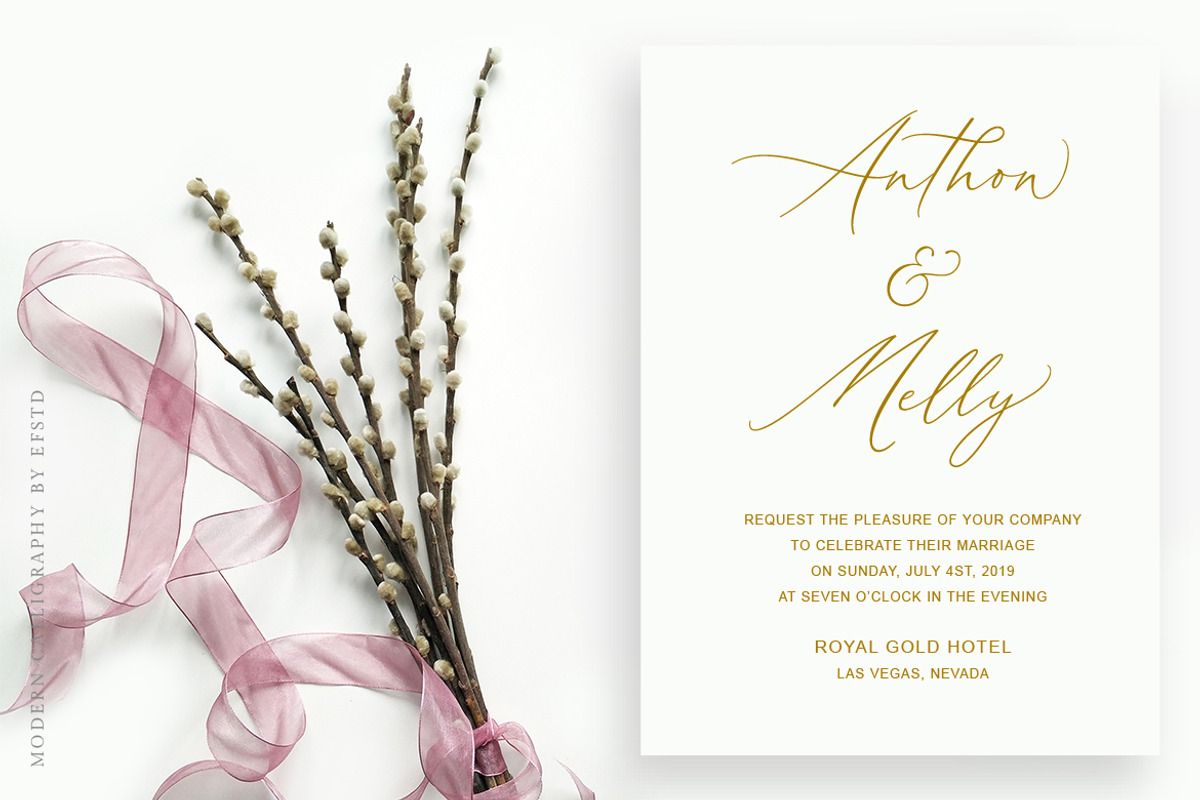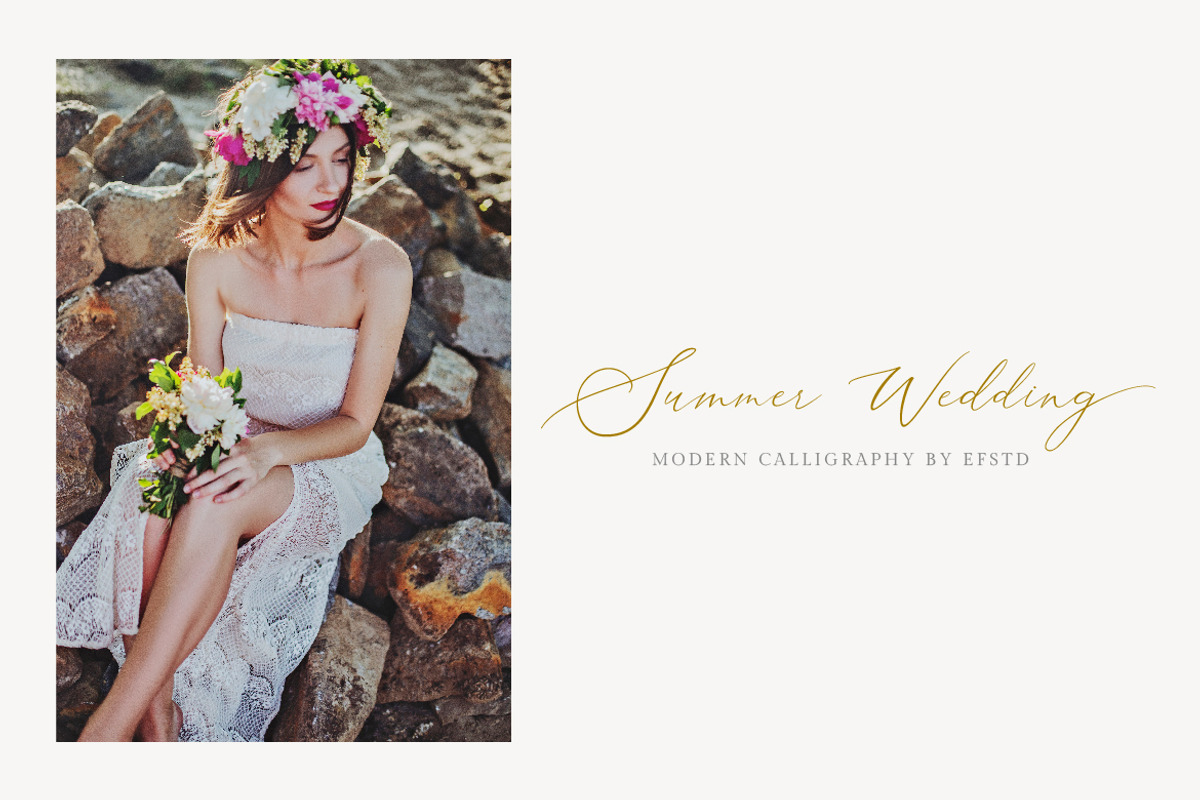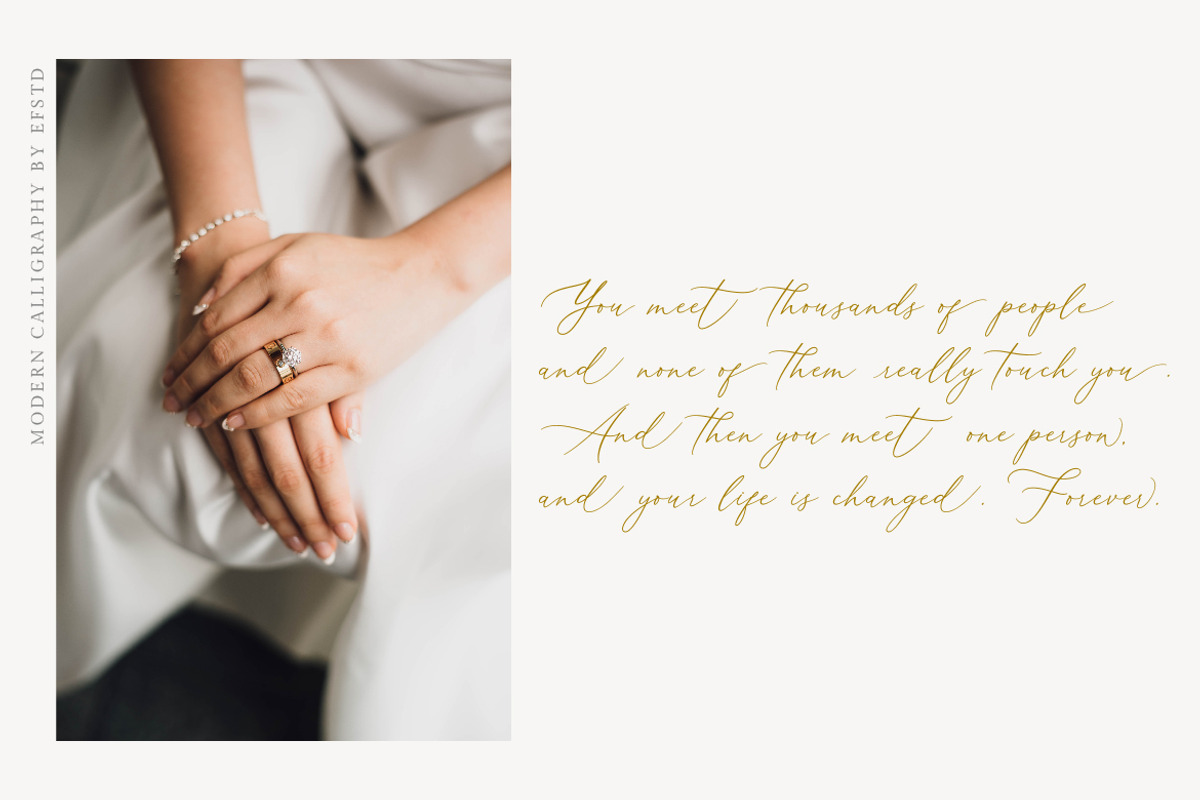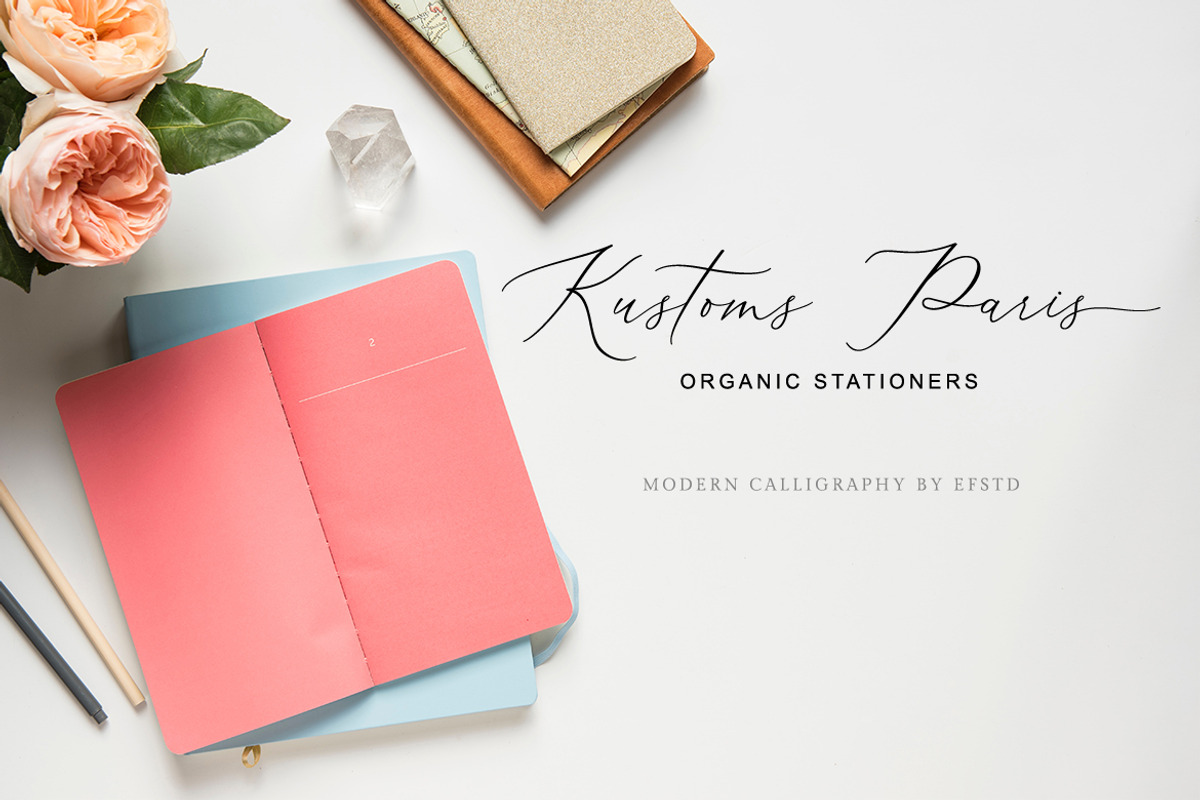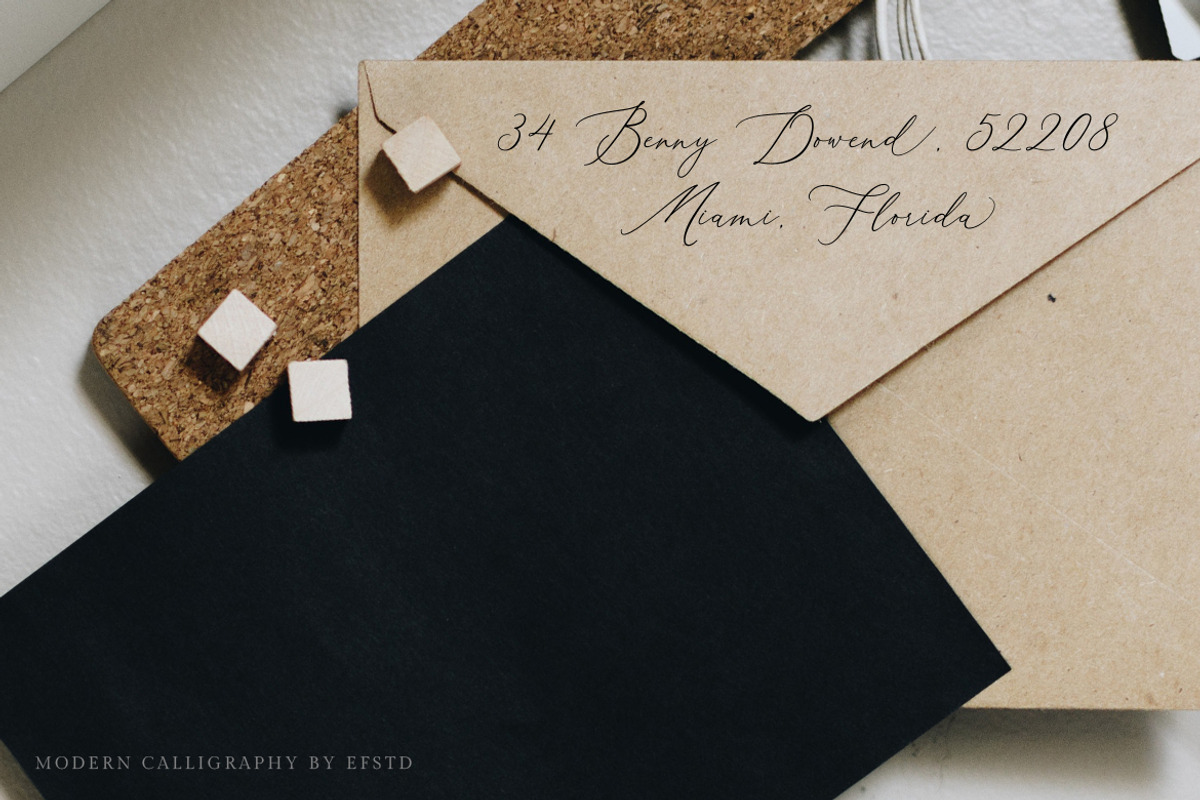
Aerotis is a classy modern calligraphy font. It is perfect for branding projects, logos, wedding designs, social media posts, advertisements, product packaging, product designs, label, photography, watermarks, invitations, stationery and any projects.
Includes all upper and lower case letters, multilingual support, punctuation, binding and initial and final swash, everything can be easily accessed using software that supports OpenType.